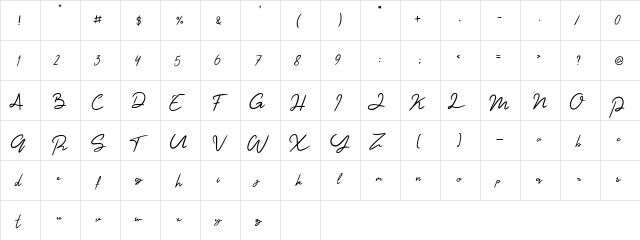
Elesty Regular
| Foundry | Sweet Salty Creative |
| Designer | Nick SAS |
Design Context for Elesty Typeface
Elesty is a composed and adaptable typeface that performs quietly and consistently across a wide range of design contexts.